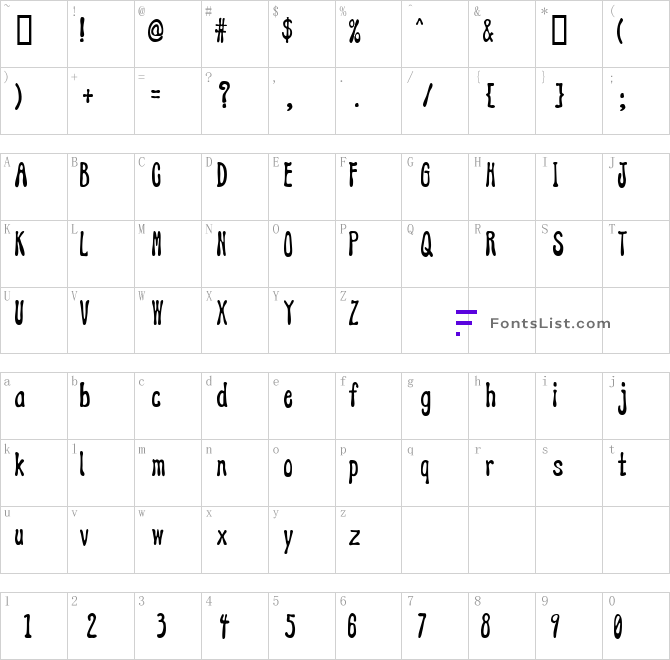
- Font Name:AddJazz
AddJazz.ttf is a very beautiful artistic font, AddJazz.ttf is widely used in the design and printing of various books and pictures,AddJazz.ttf has a strong visual impact,AddJazz.ttf is a commonly used font in newspapers, magazines and books, and is used in posters, e-commerce Poster design, store design, logo design, font design and other fields.AddJazz.